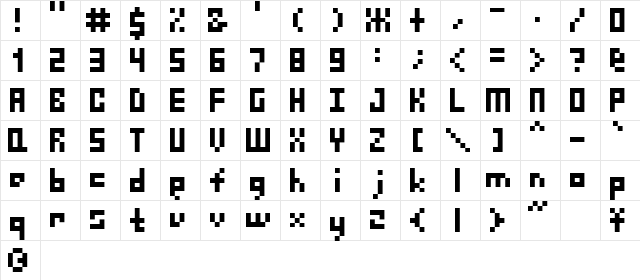
Finger Five Free Font
Finger Five
Style: Five
Design Context for Finger
Finger is a composed and adaptable typeface that performs quietly and consistently across a wide range of design contexts.